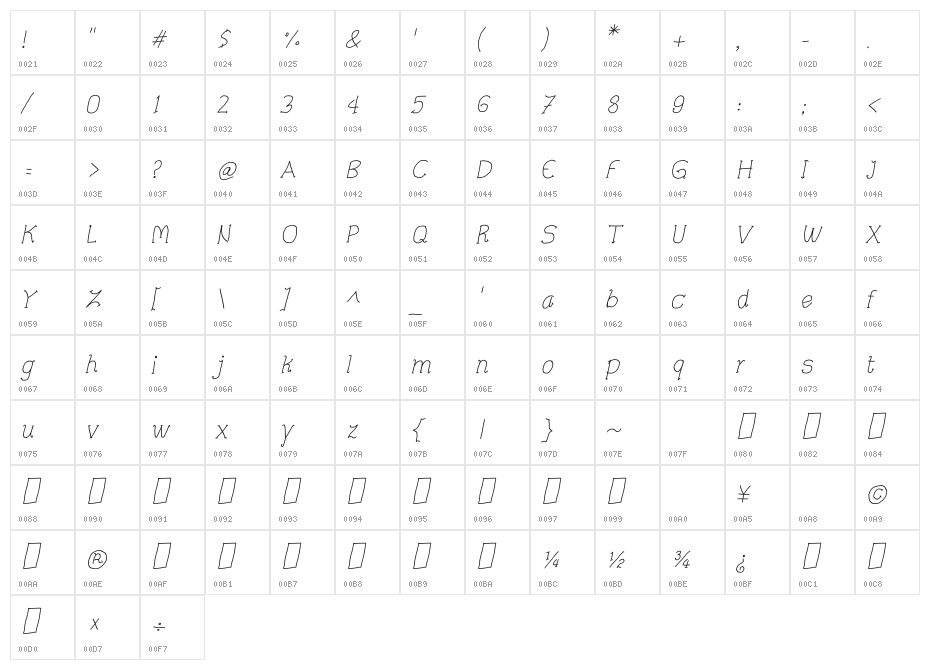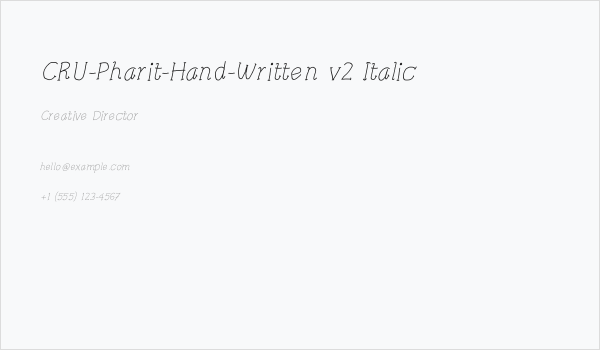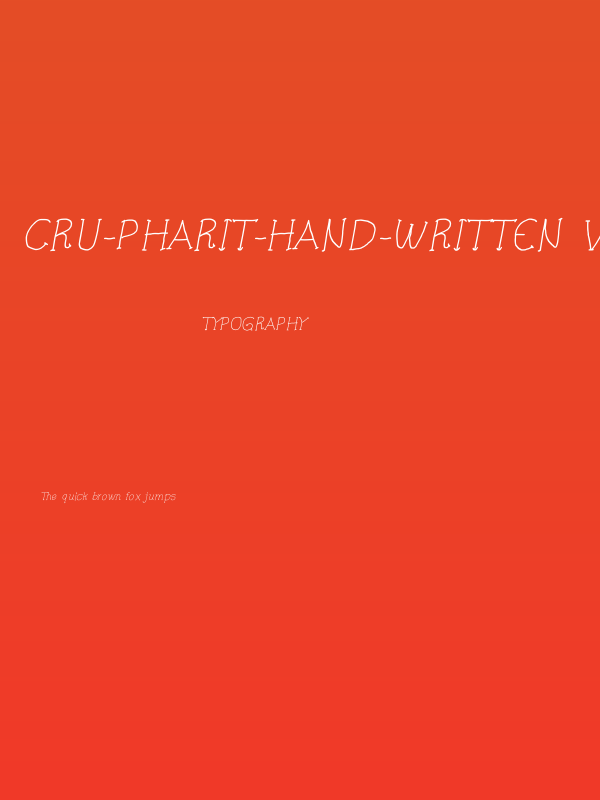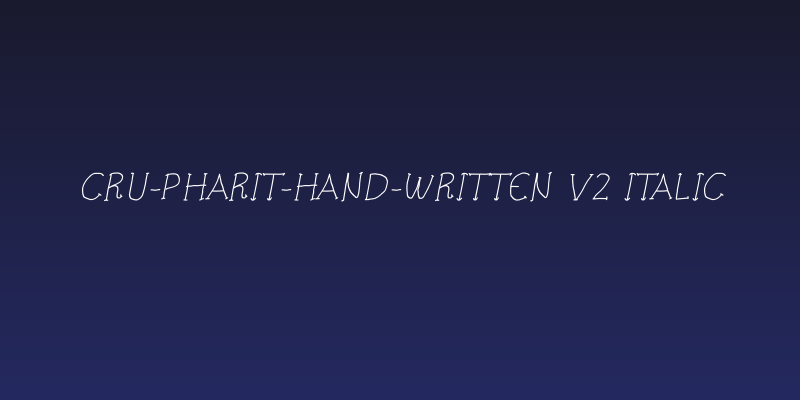
CRU-Pharit-Hand-Written v2 Italic Font
CRU-Pharit-Hand-Written v2 Italic Description
This font features a delicate, hand-drawn style with an italic slant, giving it a personal and artistic touch. The characters are elegantly crafted with a consistent flow, reminiscent of cursive handwriting. Each letter has a unique flair, with slight variations in stroke width that add to its charm. The uppercase letters are tall and slightly narrow, while the lowercase letters maintain a smooth, flowing baseline. Numbers and special characters are designed to match the overall aesthetic, ensuring a cohesive look. This font is perfect for projects that require a personal, handwritten feel.
| Proposed Projects | Ideal for wedding invitations, personal letters, greeting cards, and artistic projects that require a handwritten touch. |